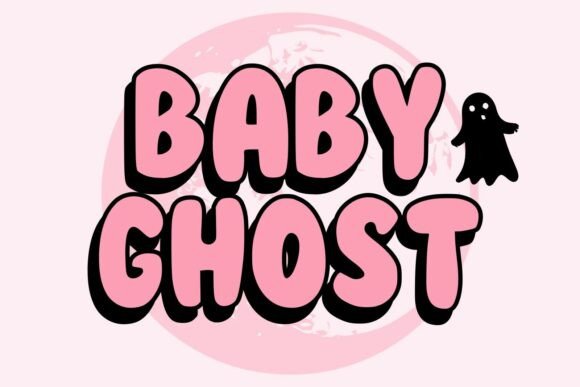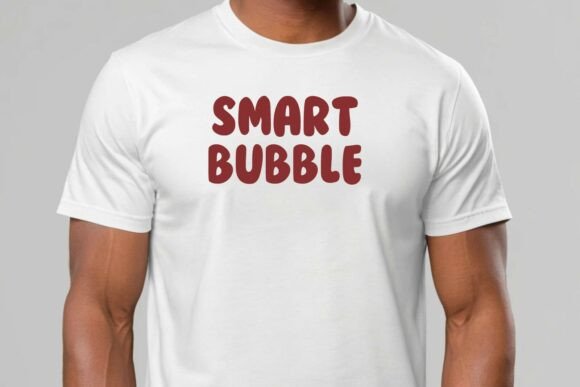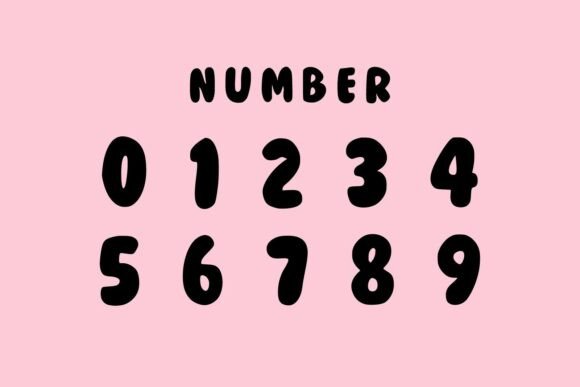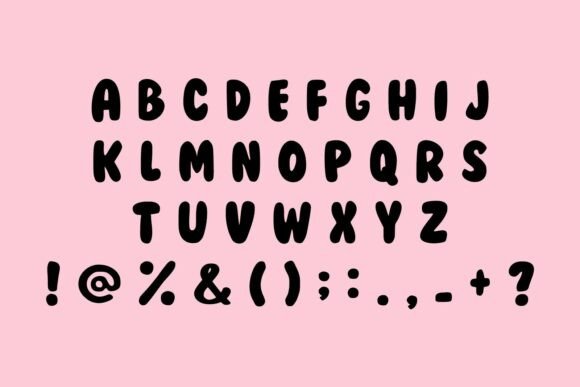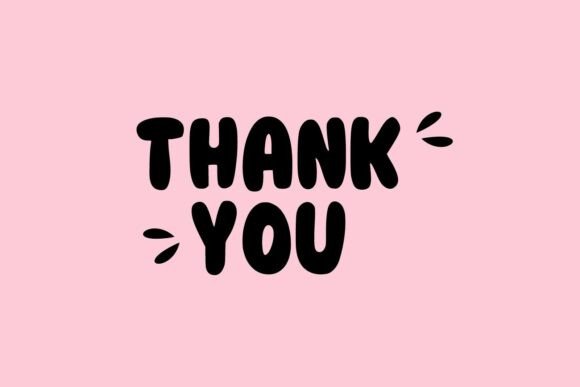
Introduction to Boho Spooky Font
Remember that moment when you stumbled upon the perfect font for your creative project, and it instantly sparked a wave of inspiration? For designers, it’s like finding a hidden treasure – and that’s exactly what the Boho Spooky Font is.
This delightful font has captured the hearts of many designers with its charming and cute bubble design, exuding playfulness and whimsy. Its soft curves and bold appearance make it a perfect fit for creating eye-catching headlines, posters, social media graphics, and branding. Whether you’re working on a project that requires a dreamy touch or a high-quality design resource, the Boho Spooky Font is sure to deliver.
Key Features of Boho Spooky Font
- Unique and eclectic design style that combines bohemian and spooky elements, perfect for creative projects and designs that require a touch of whimsy.
- Designed to be highly versatile, the Boho Spooky Font can be used for a wide range of creative projects, from invitations and greeting cards to digital art and design resources.
Honest Review: Boho Spooky Font
I recently stumbled upon the Boho Spooky Font while working on a creative project, and I must say, I was thoroughly impressed. The font is perfect for adding a touch of mysticism and elegance to your designs.
One of the standout features of the Boho Spooky Font is its high quality and unique design. The font is available for free download, which is a huge plus for designers on a budget. The transparent background option allows for seamless integration with any design element.
- Unique and elegant design
- High quality and crisp typography
- Transparent background option for easy integration
- May not be suitable for all types of creative projects (e.g. modern or minimalist designs)
- Some users may find the font too ornate or over-the-top
Overall, I’m thoroughly impressed with the Boho Spooky Font. It’s a great addition to any designer’s toolkit, and I’d highly recommend it for those looking to add a touch of whimsy and magic to their designs.
Common Use Cases for Boho Spooky Font
Boho Spooky Font is ideal for designing invitations, social media graphics, and blog posts. It’s also perfect for creating a spooky atmosphere for Halloween-themed designs.